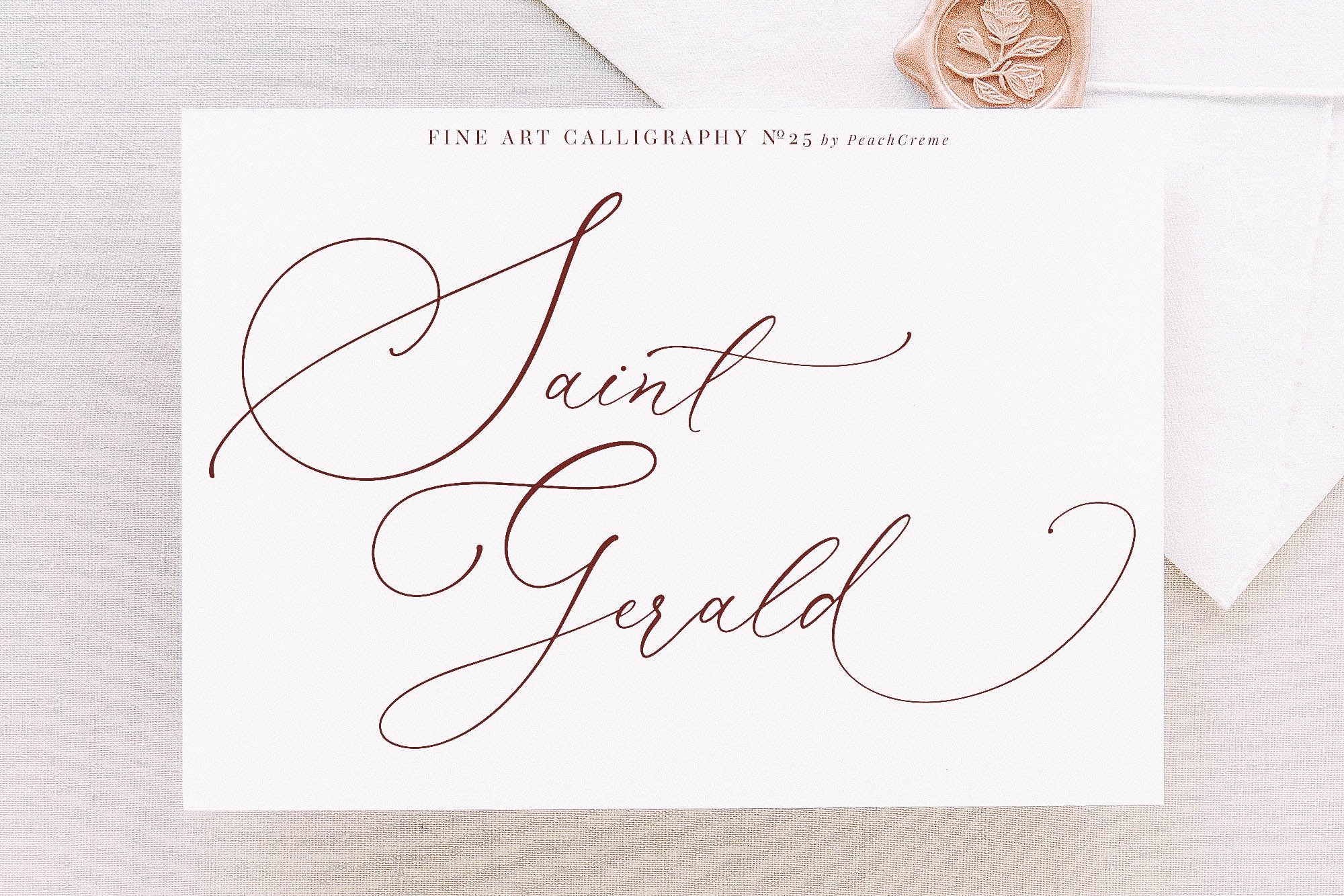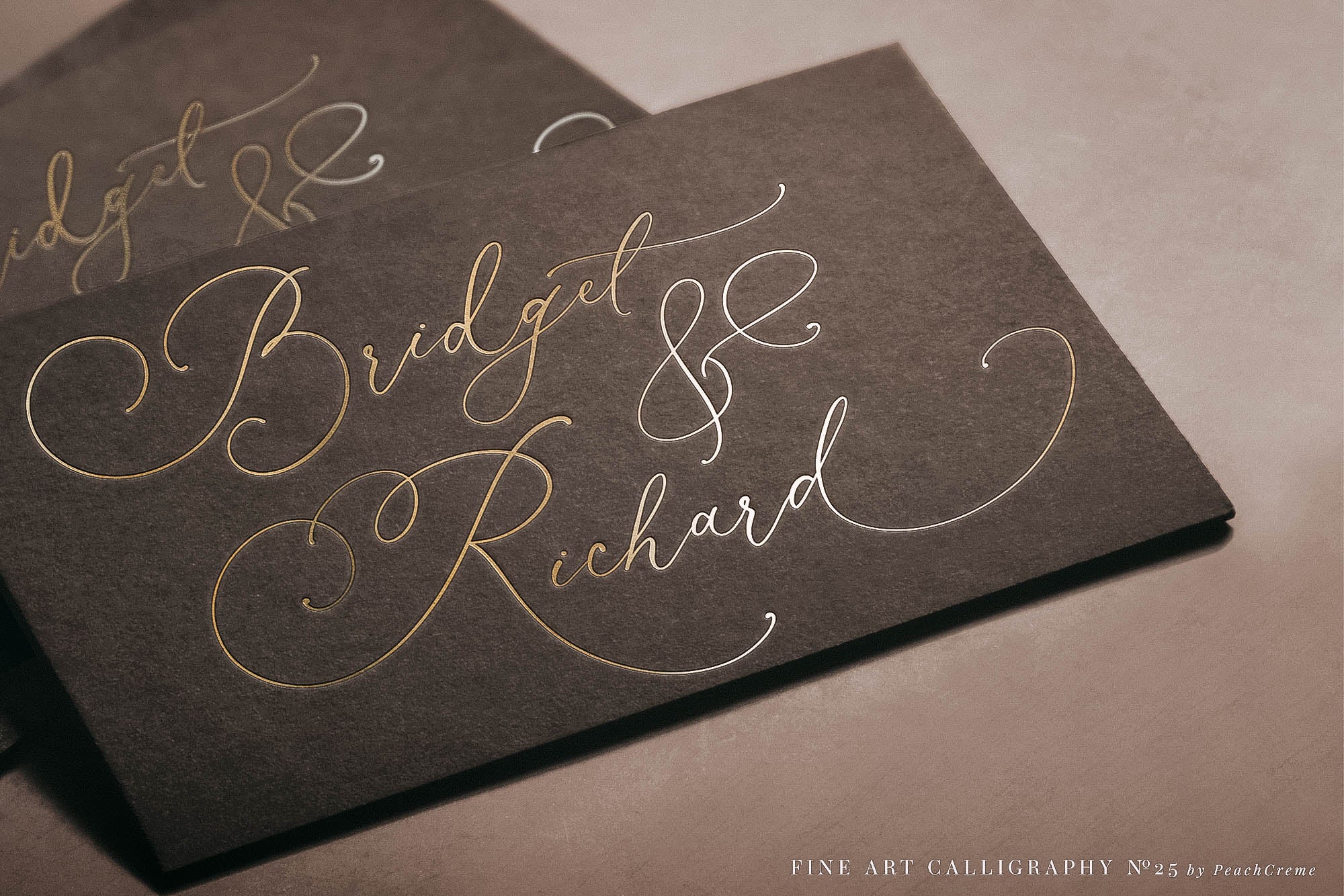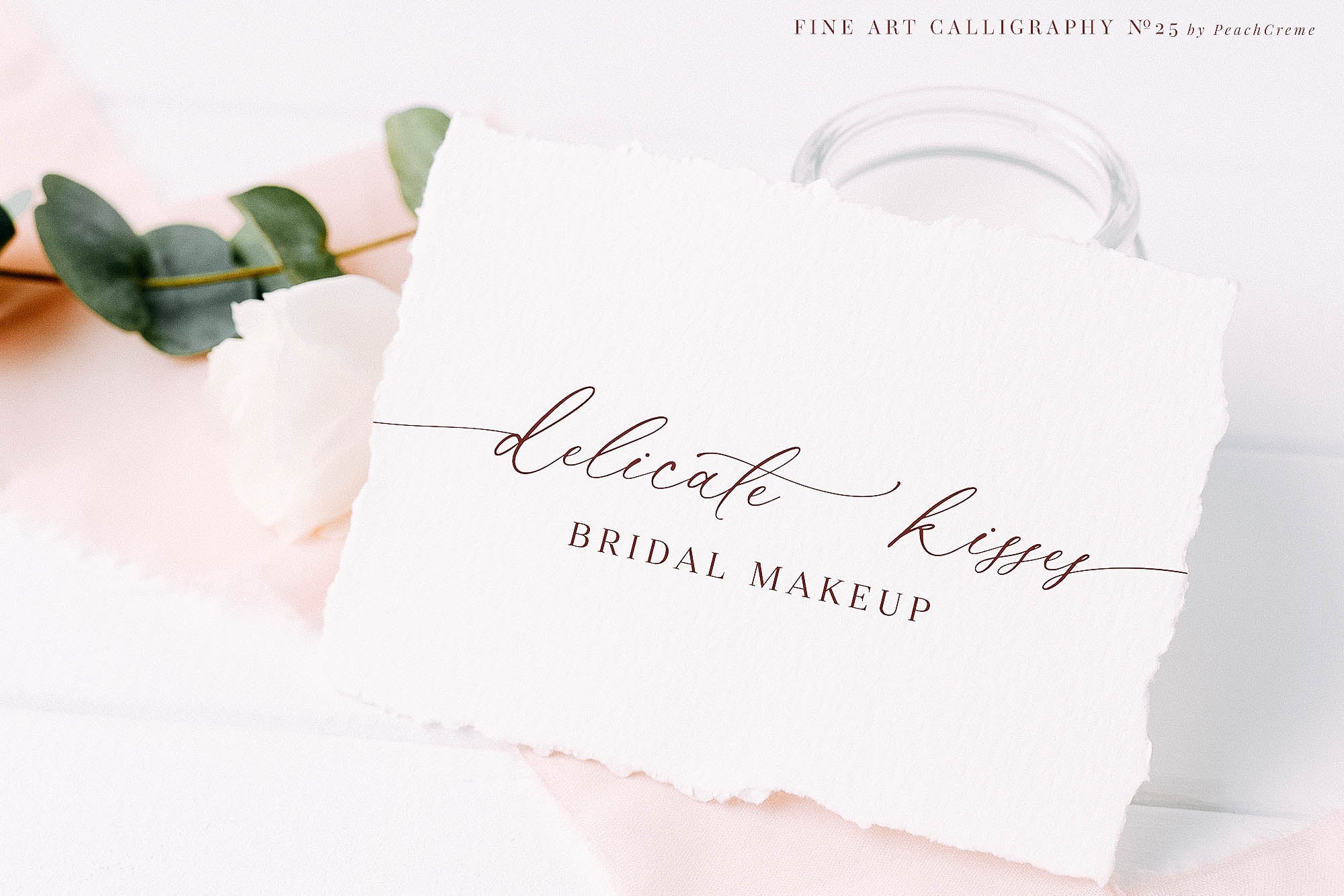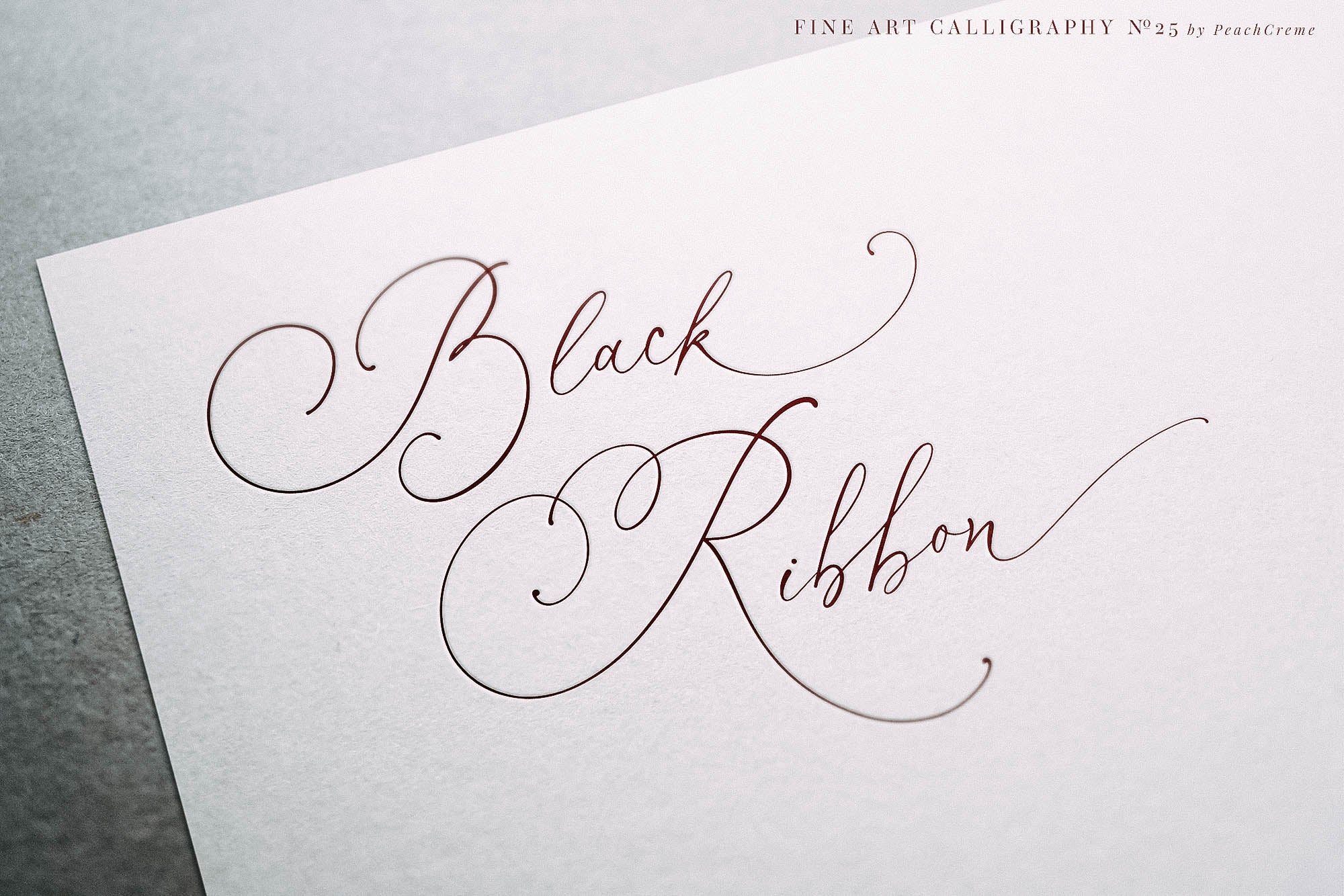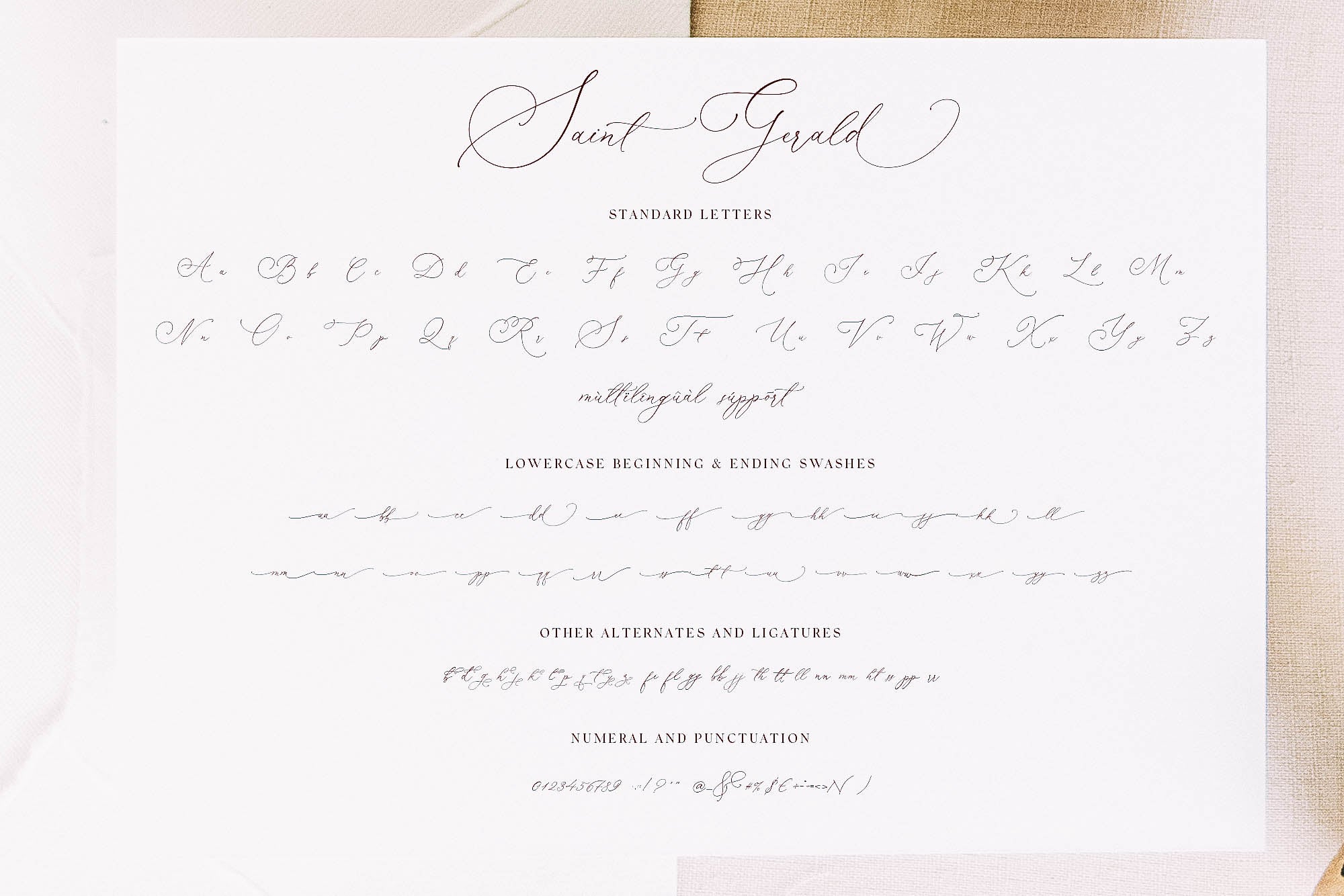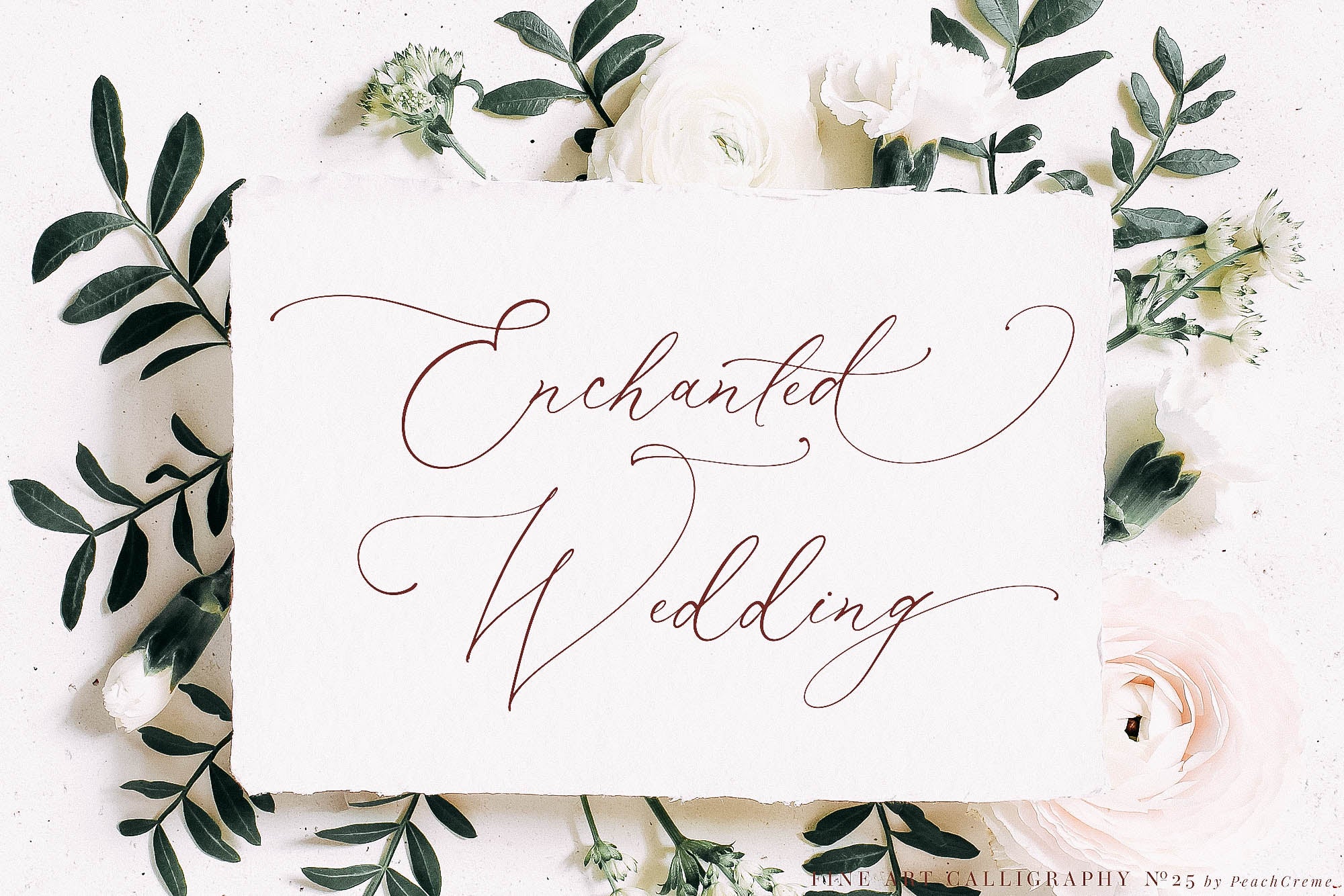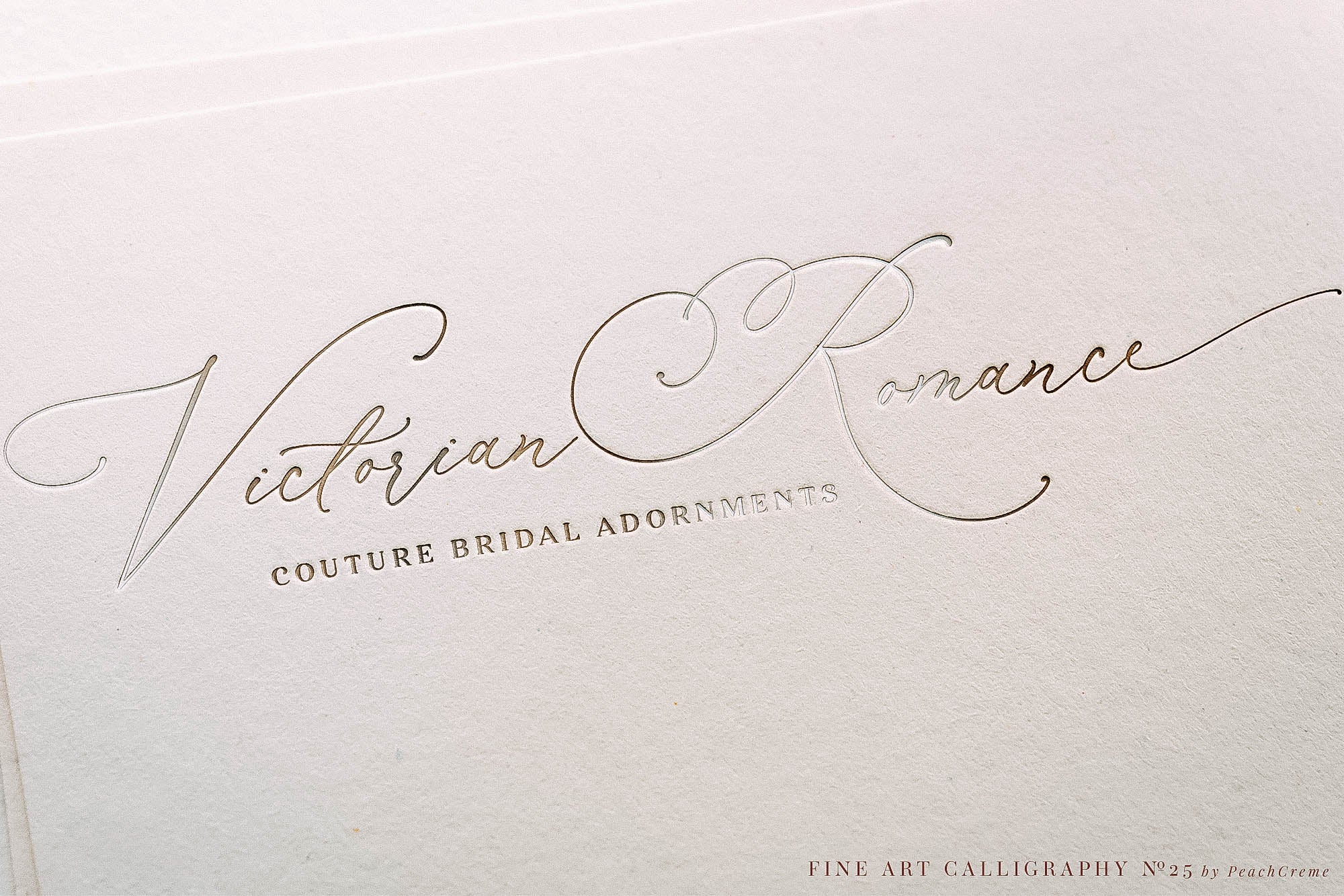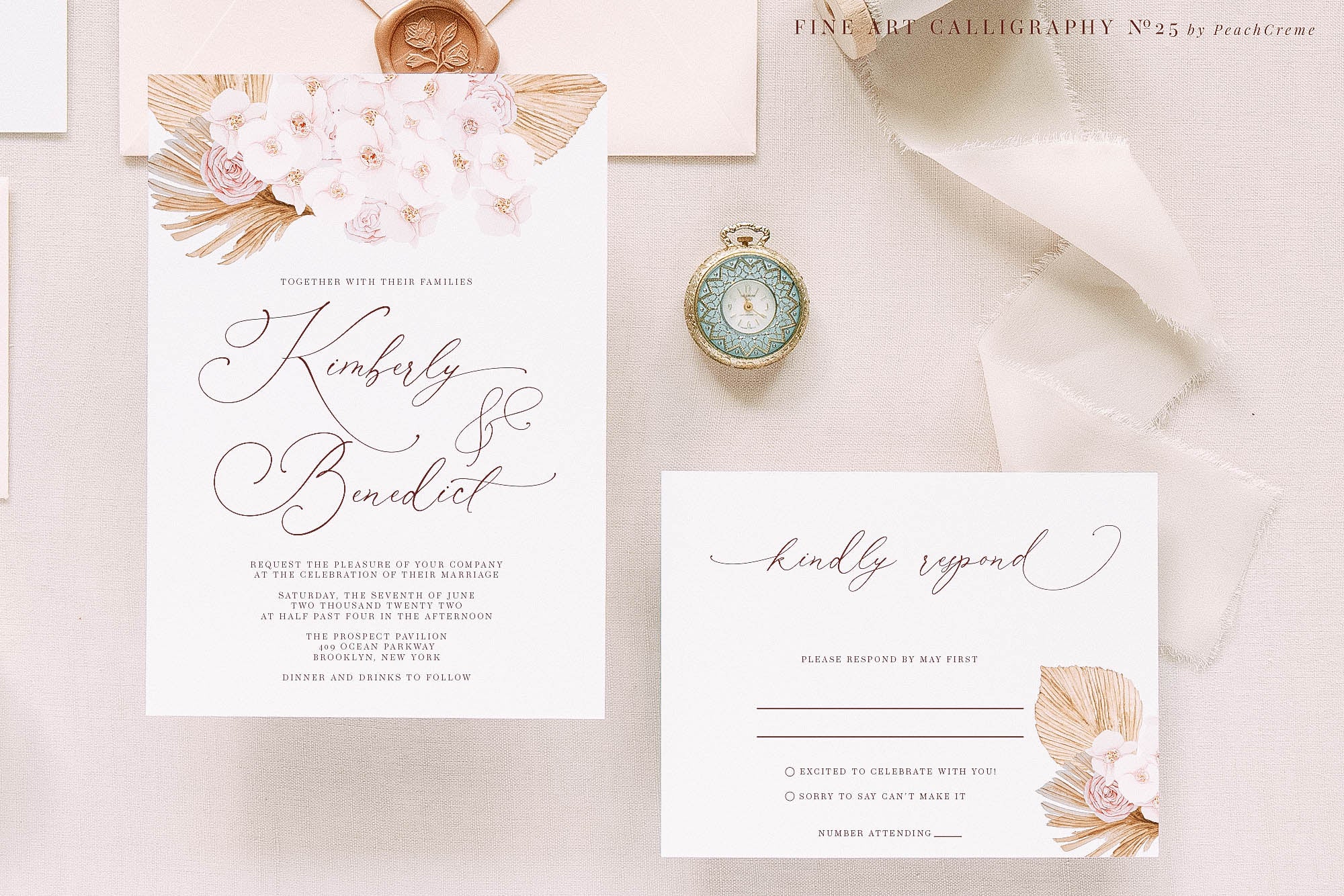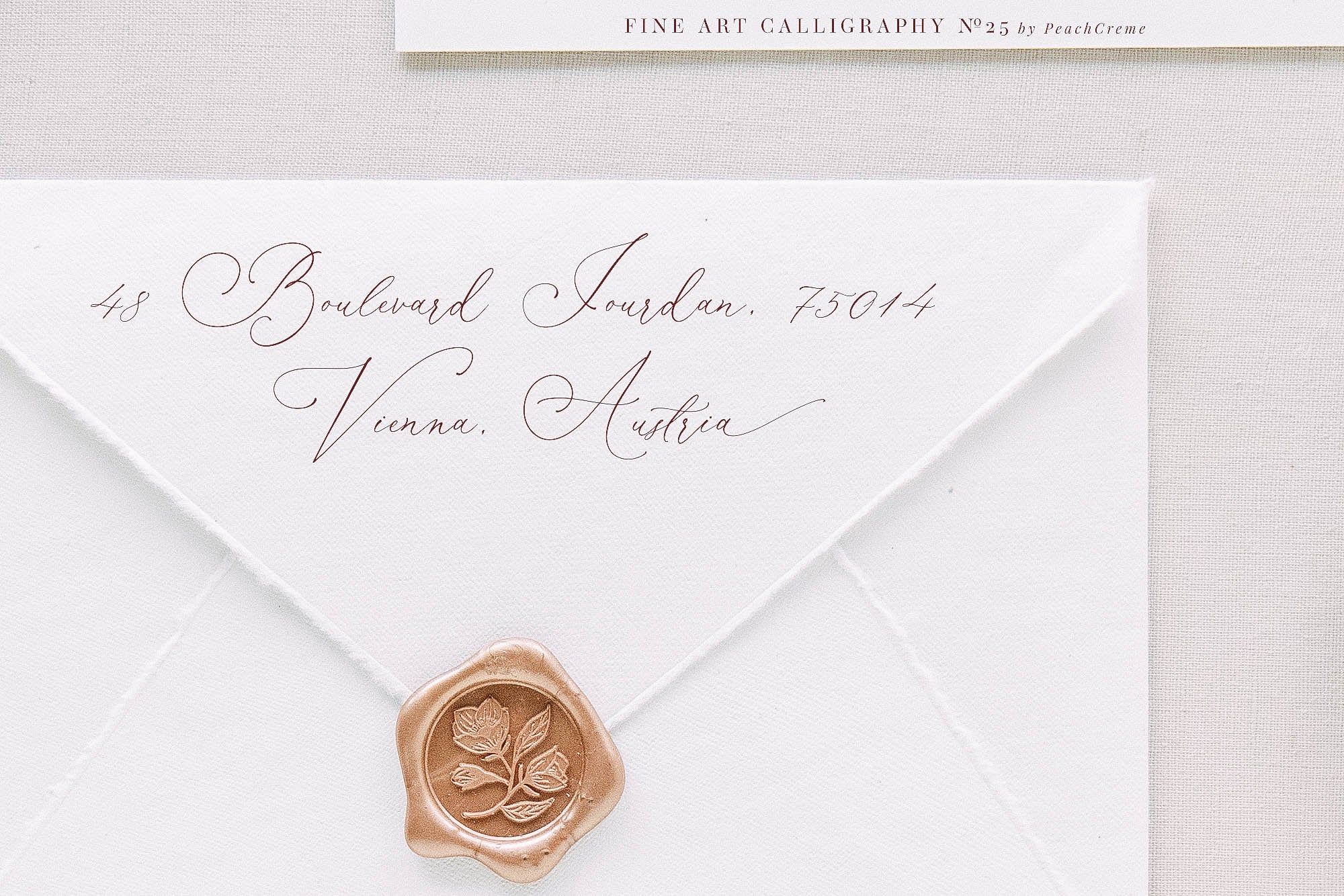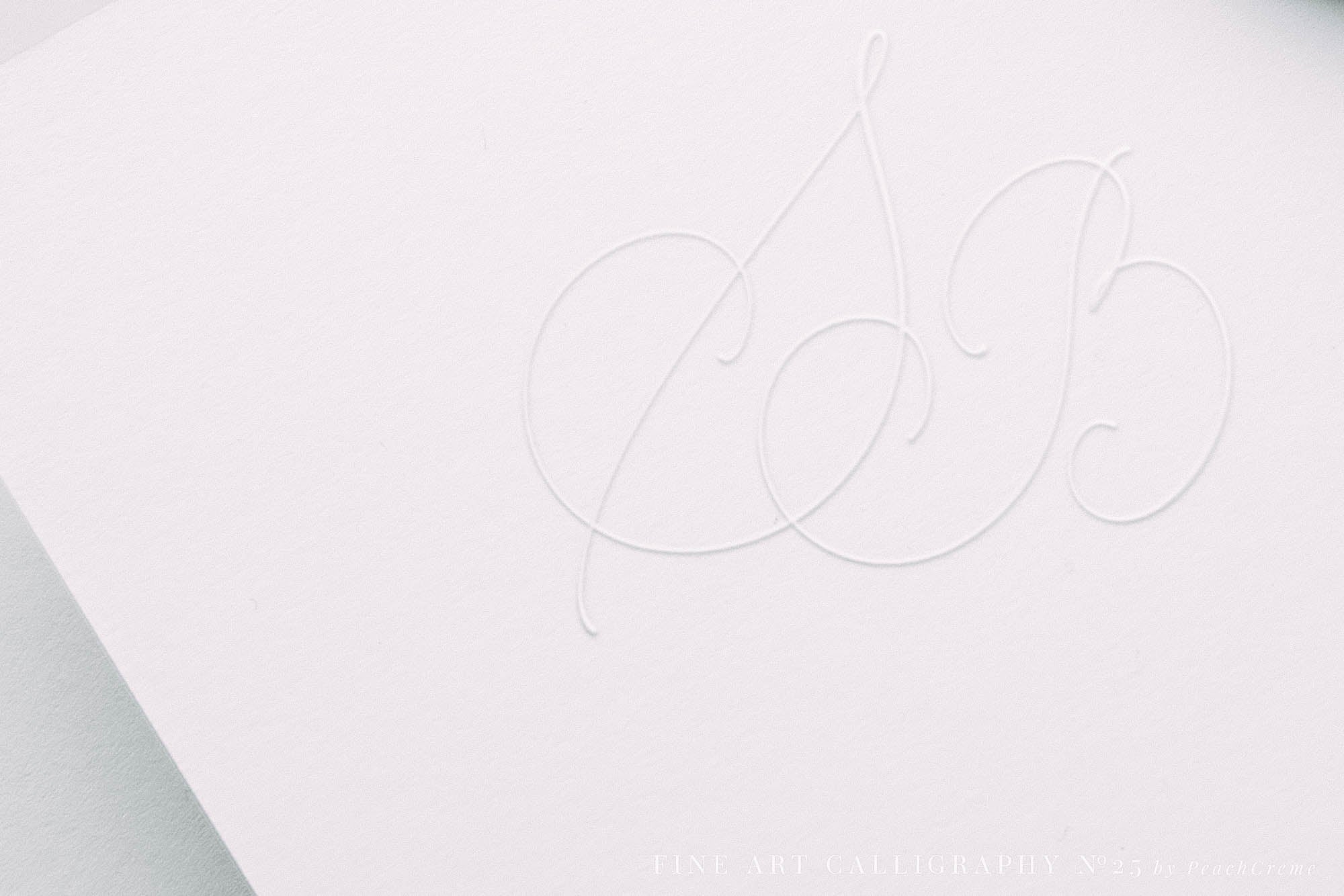
Saint Gerald Script
LUXURY FINE ART TYPOGRAPHY VOL.25
Saint Gerald is a crème de la crème modern calligraphy font with contemporary, sophisticated accents. It is perfect for branding, wedding invites and cards, and maybe for red wine label.
Saint Gerald includes full set of gorgeous uppercase and lowercase letters, numerals, a large range of punctuation and ligatures. All lowercase letters include beginning and ending swashes, giving realistic hand-lettered style. Some letters include flourishes (b d g h j k l p q t y z).